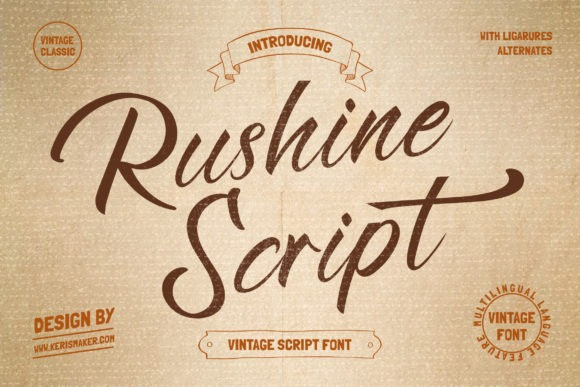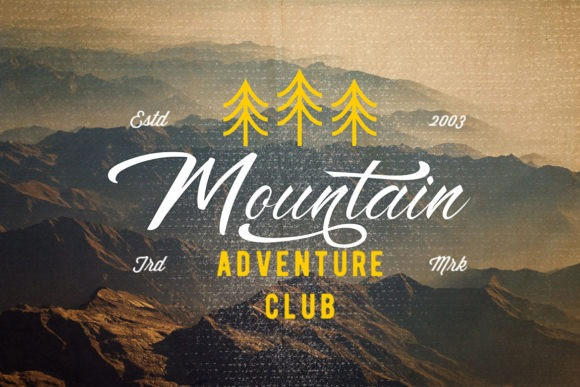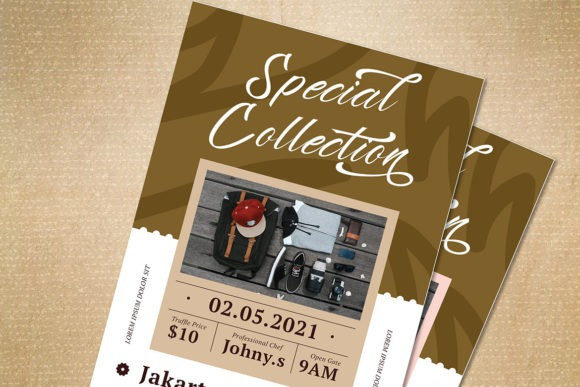
Rushine Font
Say hello to Rushine Script, a vintage calligraphy brush stroke font. This font is good for logo design, Social media, Movie Titles, Books Titles, short text even long text letters, and good for your secondary text font with sans or serif.